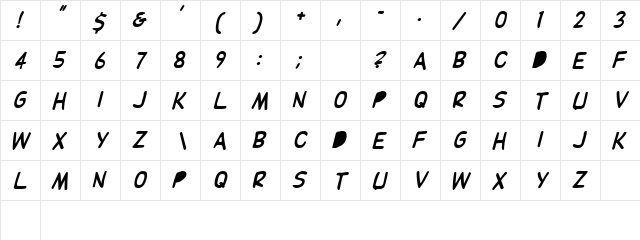
OxbowCaps Bold-Oblique
Design Context for OxbowCaps Typeface
OxbowCaps is a composed and adaptable typeface that performs quietly and consistently across a wide range of design contexts. The slanted form adds forward momentum and visual energy. Its bold stroke weight gives it real presence on the page.
Pro Tip: Try OxbowCaps for annotation and caption copy alongside an upright companion — the contrast in angle creates a dynamic but ordered typographic system.